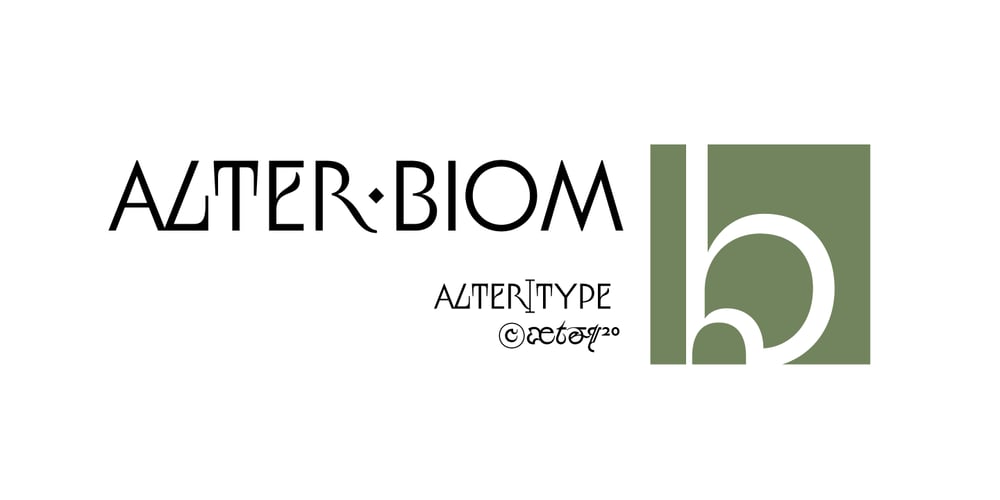
Alter Biom
Alter Biom font
Alter Biom Font Family was designed by Elena Kowalski, A. Ego and published by Glen Jan. Alter Biom contains 2 styles and family package options. Alter Biom is eclectic sans-serif inspired by many type styles from calligraphy and blackletter to modernism. It will work great as titles and headlines, short display-textlines on book covers, magazines, packaging or posters. On the web this type must be used in large point sizes for best legibility.It supports Latin Extended-A (Western, Central Europe, Baltic, Turkish) and Cyrillic encoding languages and contain minimal set of opentype features – lining digits, case sensitive punctuation, small-numeric forms and scripted fractions.Fully functional Demo style is distributed free for non-commercial using.